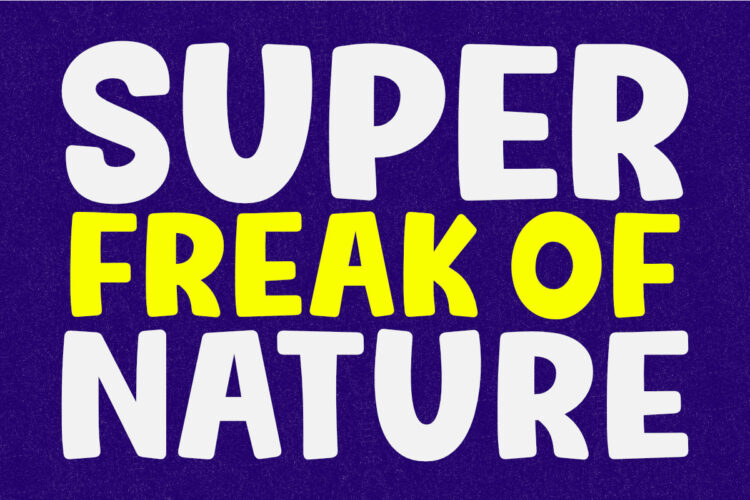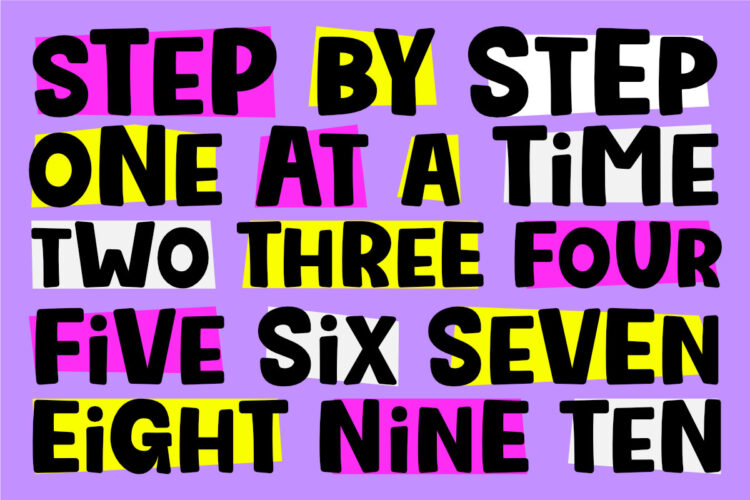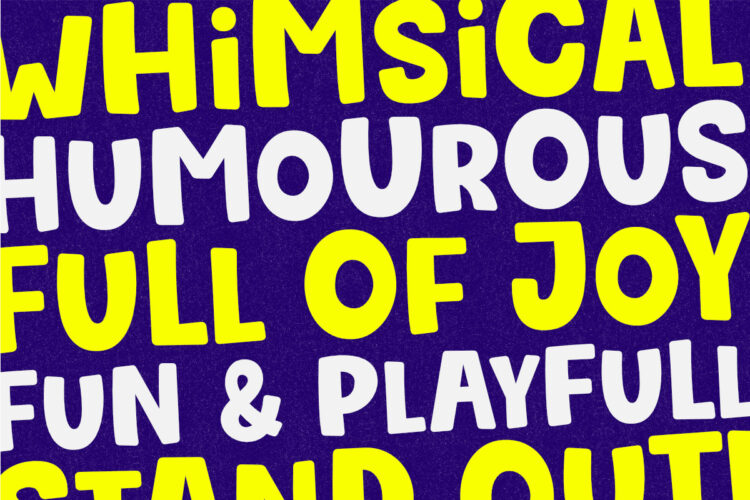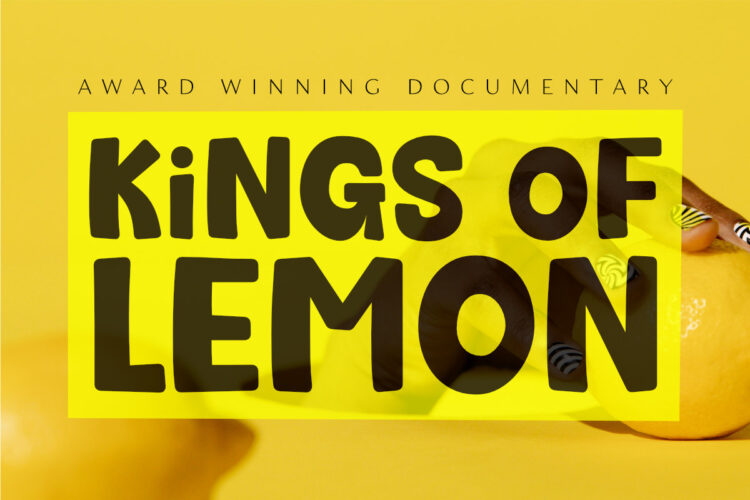
Big Neo is a carefree and colorful typeface with a youthful and fun vibe. It’s great for creating a happy mood in your designs. You can use it for logos, business cards, posters, headlines, T-shirts, blogs, product packaging, and more.
Make your design stand out with Big Neo!